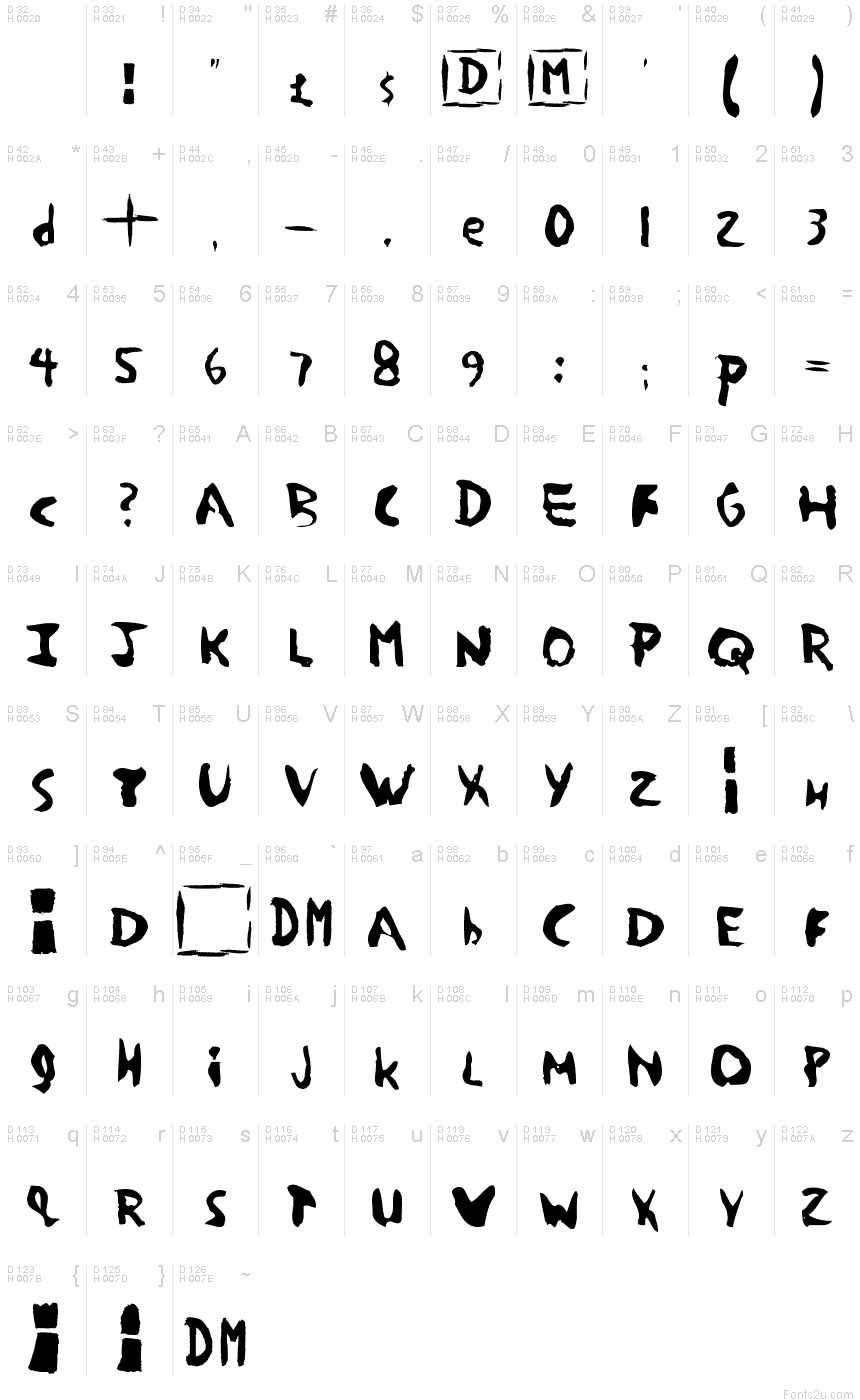
Devotion
Devotion font is a free distorted display typeface that looks like it’s been hacked out of wet ink or splashed across a wall. The letters bulge, twist, and wobble, with chunky strokes that feel raw and almost sticky, as if they haven’t quite dried. It carries a loud, unruly energy—messy on purpose—so every word feels shouted rather than spoken.
Using Devotion, this free font, you can push attitude to the front of your layouts—great for horror posters, underground gig flyers, zines, album covers, streetwear graphics, and bold social media titles. The irregular shapes create a restless rhythm, grabbing attention even from a distance. Pair it with a clean, narrow sans serif in small text to keep everything readable while Devotion screams in the headline.